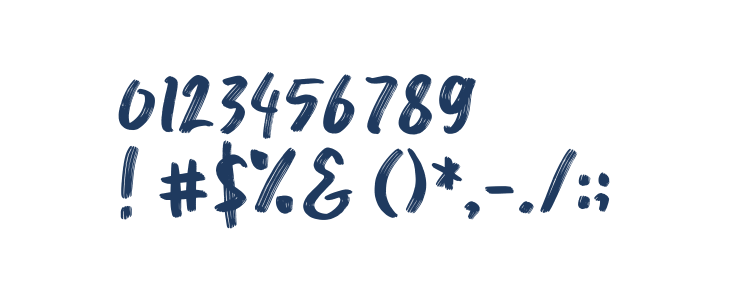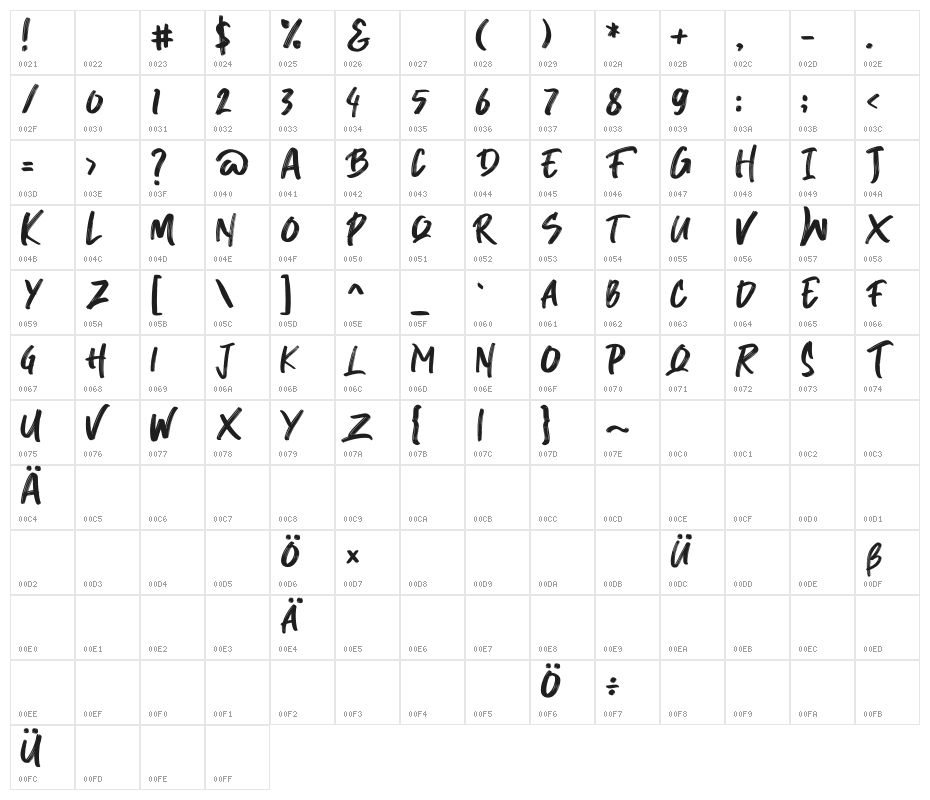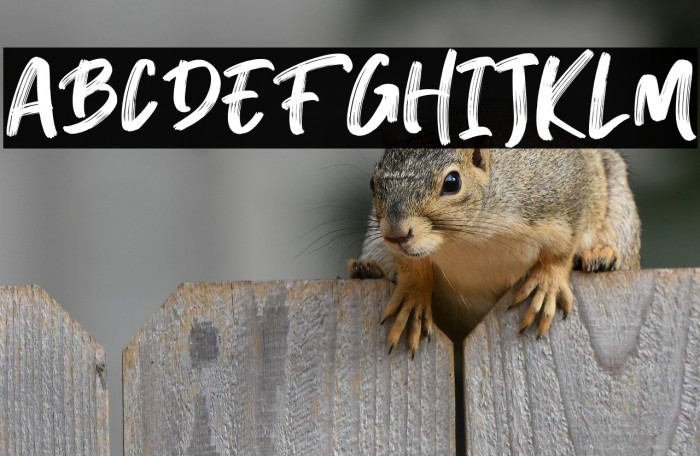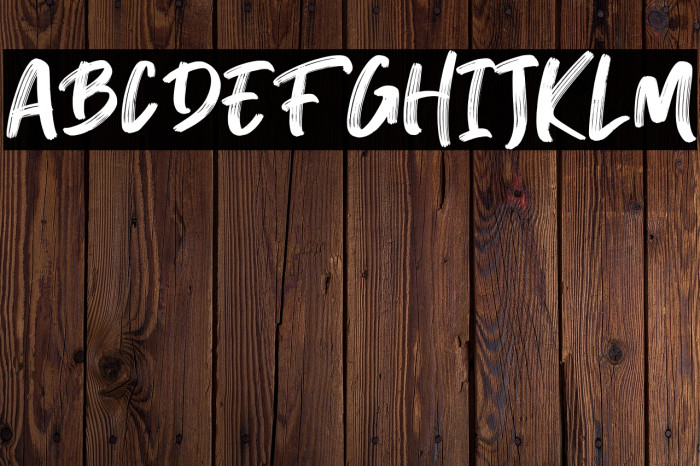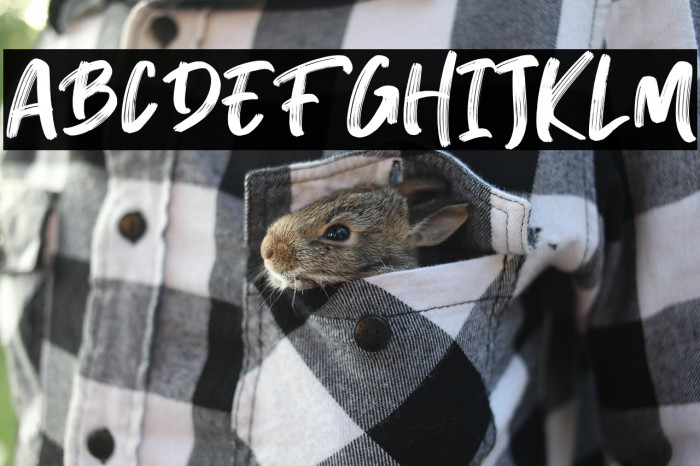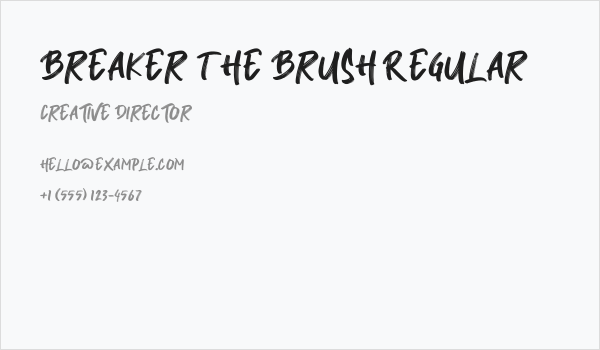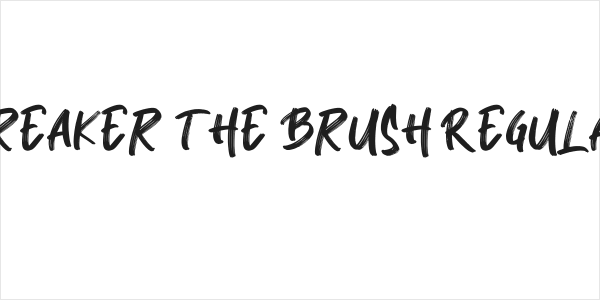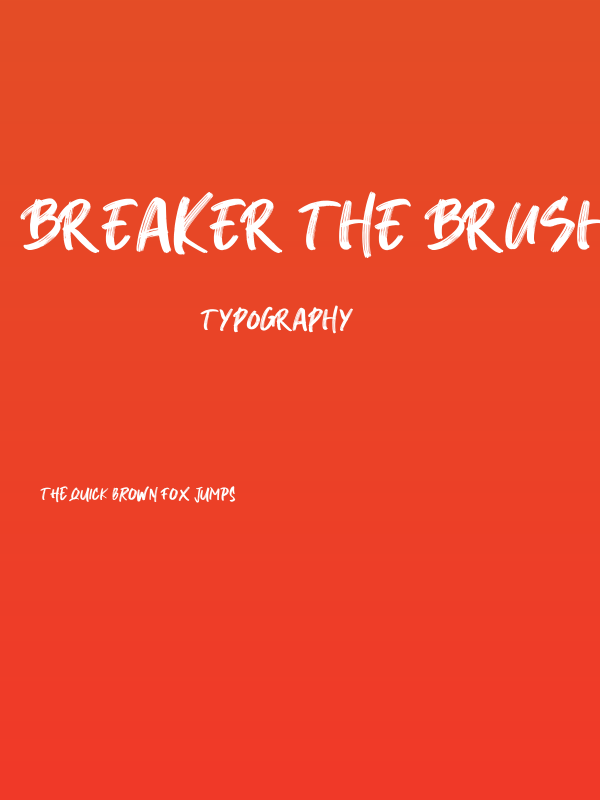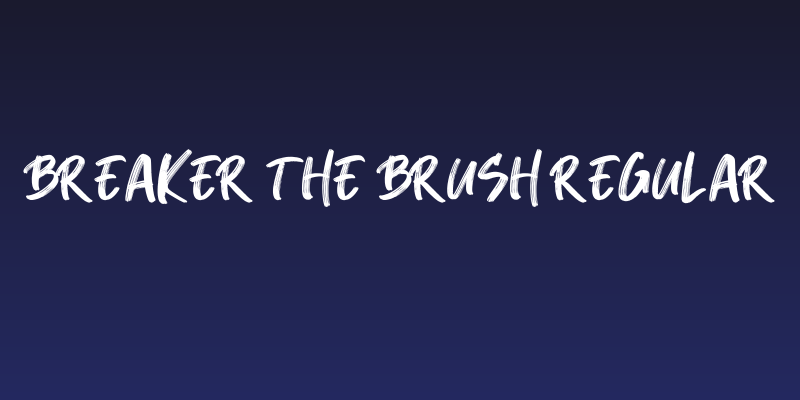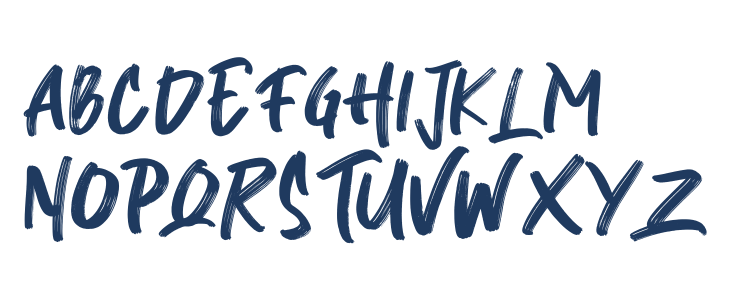
Breaker The Brush Regular Font
Breaker The Brush Regular Description
This font exudes a dynamic and energetic style, characterized by its bold, brush-like strokes that give it a hand-painted appearance. The letters are crafted with a sense of movement and fluidity, making each character appear unique and full of personality. The uppercase and lowercase letters maintain a consistent style, with varying stroke thickness that adds to the font's expressive nature. The numbers and special characters follow the same brush-stroke theme, ensuring a cohesive look across all elements. This font is perfect for projects that require a bold and artistic touch, capturing attention with its lively and creative design.
| Proposed Projects | Ideal for posters, logos, branding, and any design needing a bold, artistic flair. |